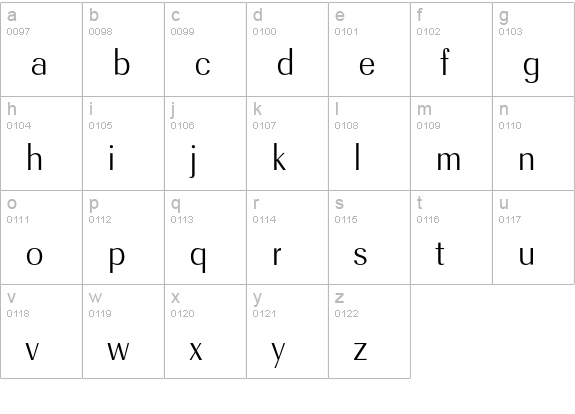
RadiantEFText-Light Font Details
RadiantEFText-Light is a refined, elegant variant in the RadiantEFText typeface family \xE2\x80\x94 well suited to elegant body text, refined sub-headings, and luxury branding.
RadiantEFText-Light font is a stunning typeface that exudes a sense of elegance and sophistication. With its clean lines and delicate curves, this font is perfect for adding a touch of class to any design project. Whether you're creating a logo, designing a website, or crafting a beautiful invitation, RadiantEFText-Light font will effortlessly elevate your work to new heights. What sets RadiantEFText-Light font apart is not just its aesthetic appeal, but also its versatility. This font can be used in a variety of contexts, from formal business presentations to whimsical greeting cards. Its light weight adds a subtle and airy feel, making it ideal for designs that require a delicate touch. And the best part? RadiantEFText-Light font is absolutely free! That's right, this incredible font is freely available to download at FontsMarket.com. Now you can enhance your designs with a high-quality font without breaking the bank. With RadiantEFText-Light font, you can create professional-looking designs that will leave a lasting impression, all without spending a dime. So why wait? Download RadiantEFText-Light font today and unlock a world of design possibilities. Whether you're a seasoned graphic designer or just starting out, this font is sure to become a valuable addition to your toolkit. Don't miss out on the opportunity to elevate your designs with the elegance and sophistication of RadiantEFText-Light font. Get it for free at FontsMarket.com and let your creativity shine!